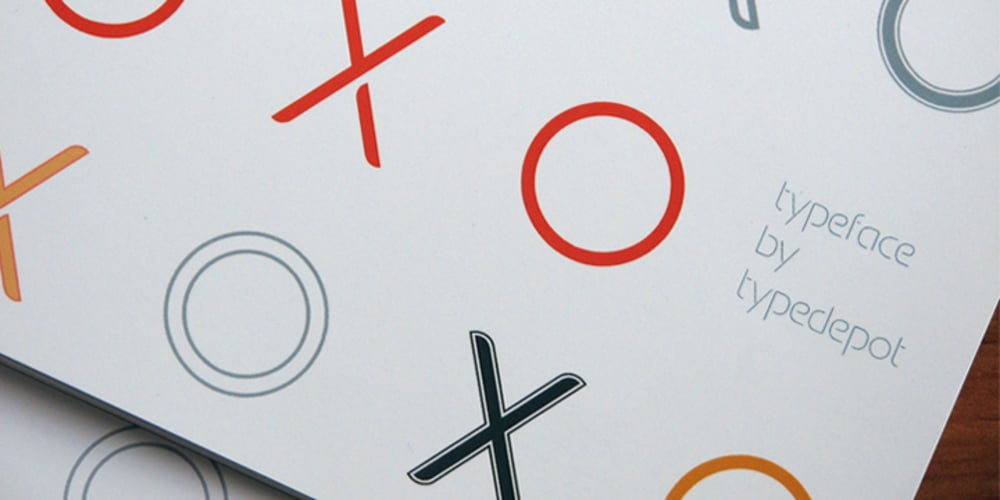
Oxo Font Family was designed by Alexander Nedelev, Veronika Slavova and published by Typedepot. Oxo contains 11 styles and family package options. Oxo is an expressive typeface from typedepot. Designed to be used as a decorative, headline font which quickly evolved into great new font usable for large amounts of text as well. Available in 4 weights – thin,light, regular and bold with their matching italics plus three extra weights: Outline, College and Deco which are great addition to the family.